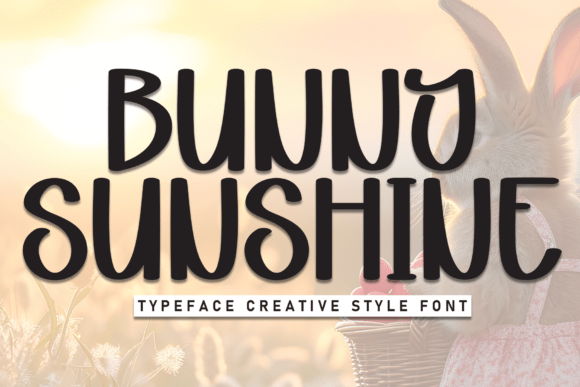
The Sunshine in Your Designs: A Deep Dive into Bunny Sunshine Font
I’ll never forget the time I was working on a branding project for a new eco-friendly product line. I had the logo concept nailed, but I was struggling to find the perfect font to complement it. The client wanted something fresh, friendly, and approachable, but I just couldn’t seem to find the right fit. That’s when I stumbled upon Bunny Sunshine Font. It was like a ray of sunshine (pun intended!) – clean, neat, and radiating a warm, casual vibe that perfectly captured the essence of the brand.
An Honest Review of Bunny Sunshine Font
- ✅ Clean lines and relaxed structure make it perfect for a variety of design projects
- ✅ Approachable design adds charm and clarity to projects while maintaining a polished appearance
- ✅ Fresh and friendly vibe that’s sure to capture your audience’s attention
- ✅ Highly versatile and can be used for packaging, posters, social media graphics, and more
- ⚠️ Limited availability of stylistic alternates, which may limit its use in certain projects
- ⚠️ May not be the best fit for very formal or traditional designs, as it has a distinctly casual feel
The Story Behind Bunny Sunshine Font
Bunny Sunshine Font was designed by a team of creatives who wanted to create a font that would bring a smile to people’s faces. Inspired by the warmth and friendliness of sunflowers, they crafted a font that would radiate a fresh and approachable vibe. The result is a font that’s perfect for designers, crafters, and creative hobbyists who want to add a touch of sunshine to their projects.
Q: What type of projects is Bunny Sunshine Font best suited for?
A: Bunny Sunshine Font is perfect for packaging, posters, social media graphics, and more. Its fresh and friendly vibe makes it ideal for creative projects that need a touch of warmth and approachability.
Q: Is Bunny Sunshine Font available in different weights or styles?
A: Currently, Bunny Sunshine Font is available in a single weight. However, the designer may release additional weights or styles in the future, so be sure to check for updates.